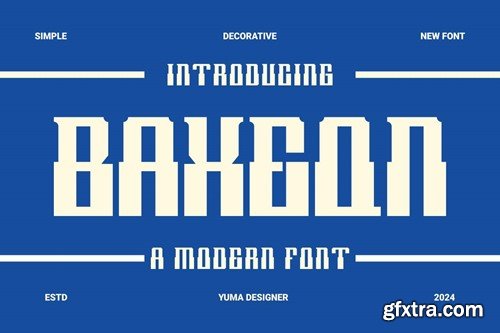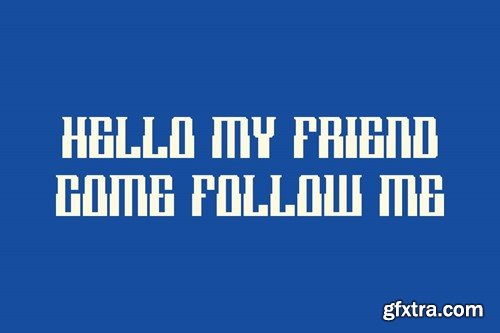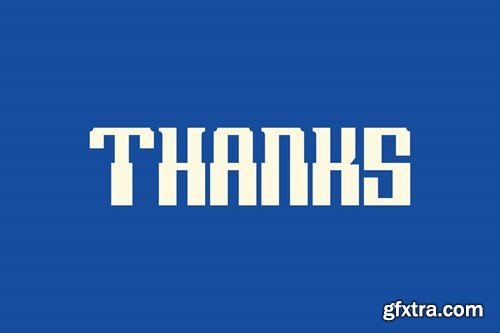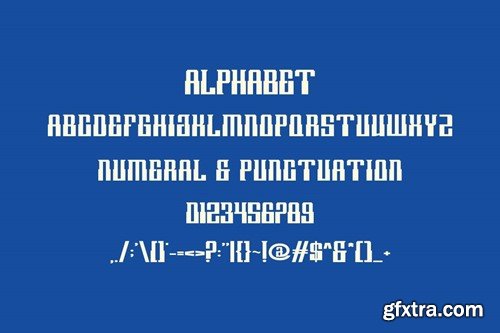
Baxeqn - Modern Typeface
Introducing Baxeqn Modern Decorative Font. Baxeqn is a modern and simple font, best used as a display for headings, logos, branding, magazines, product packaging and invitations. Baxeqn come with clean lines and smooth curves give any project an extra touch of class. What you get: Thank you.